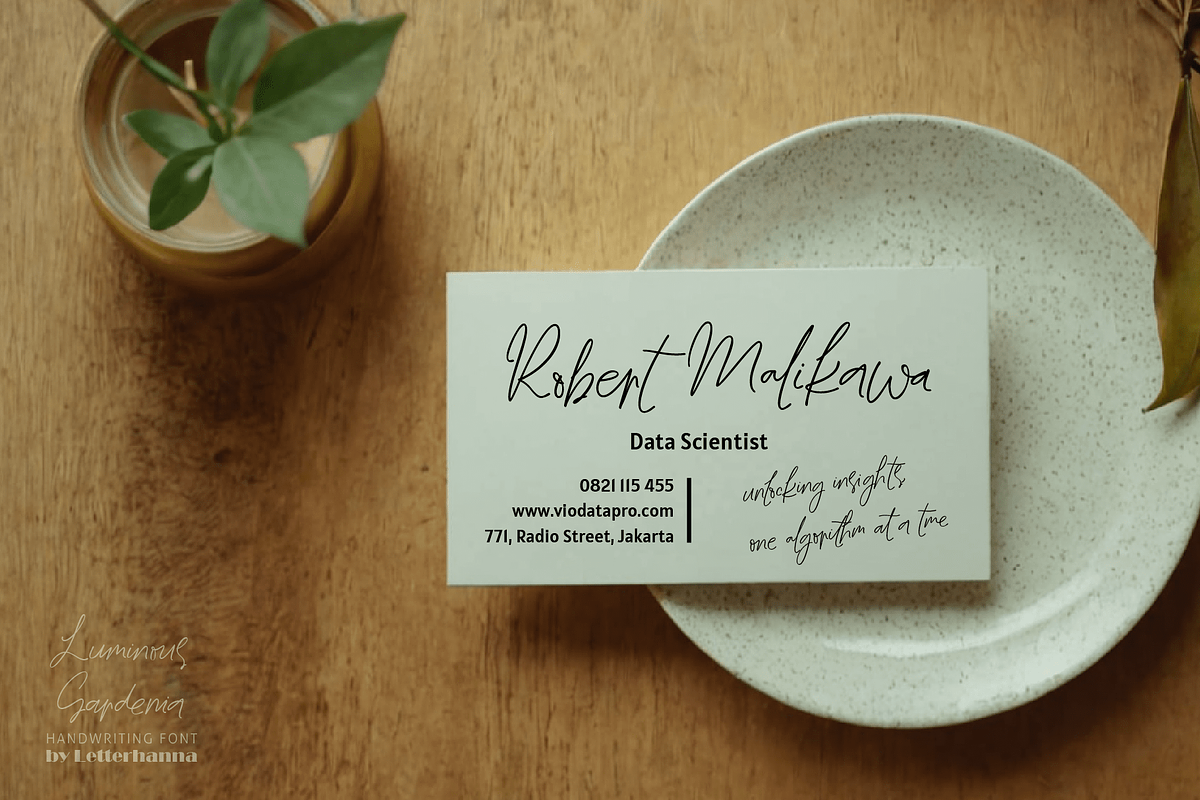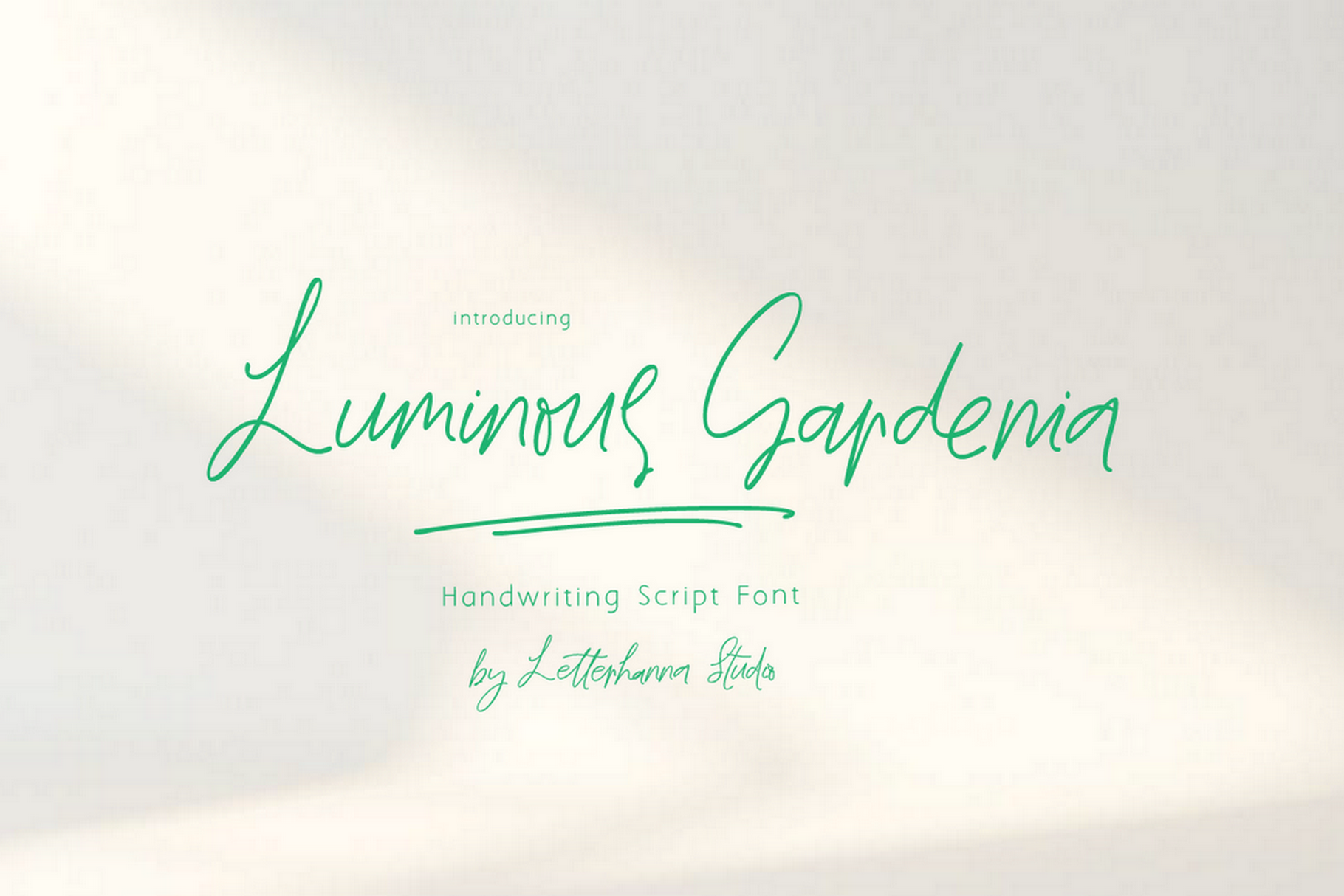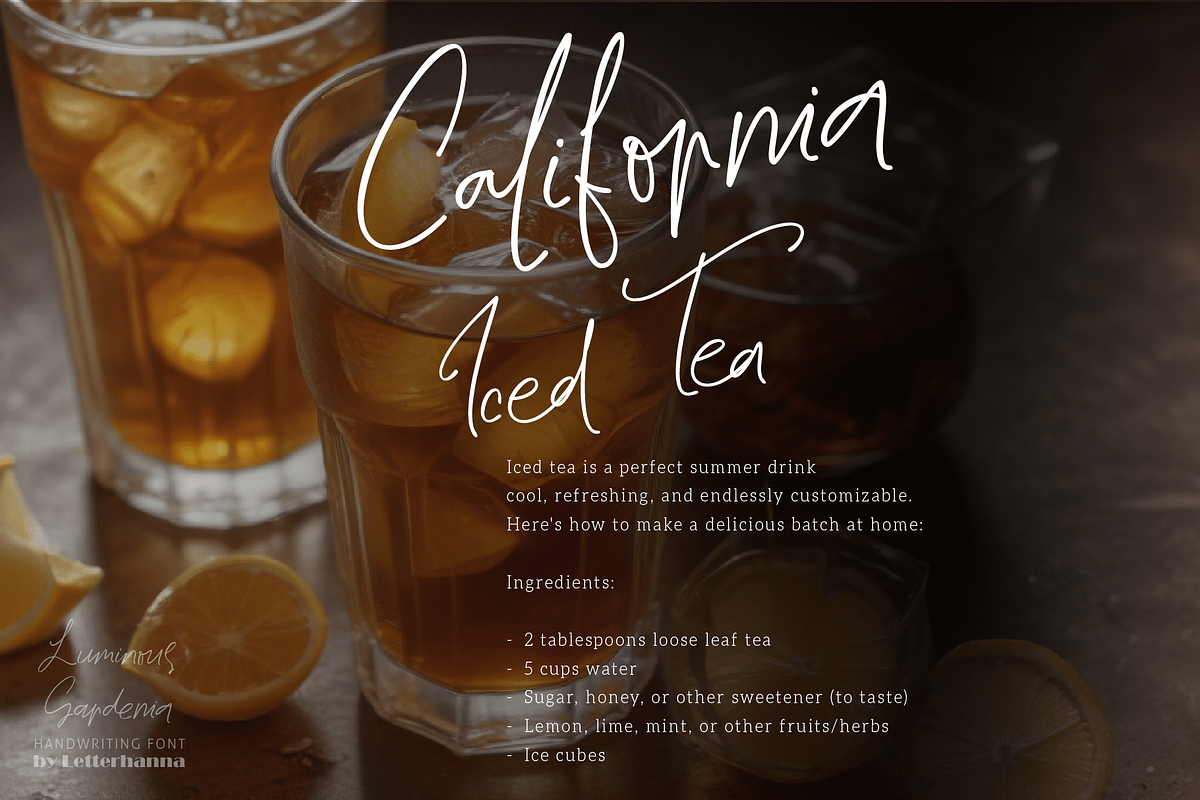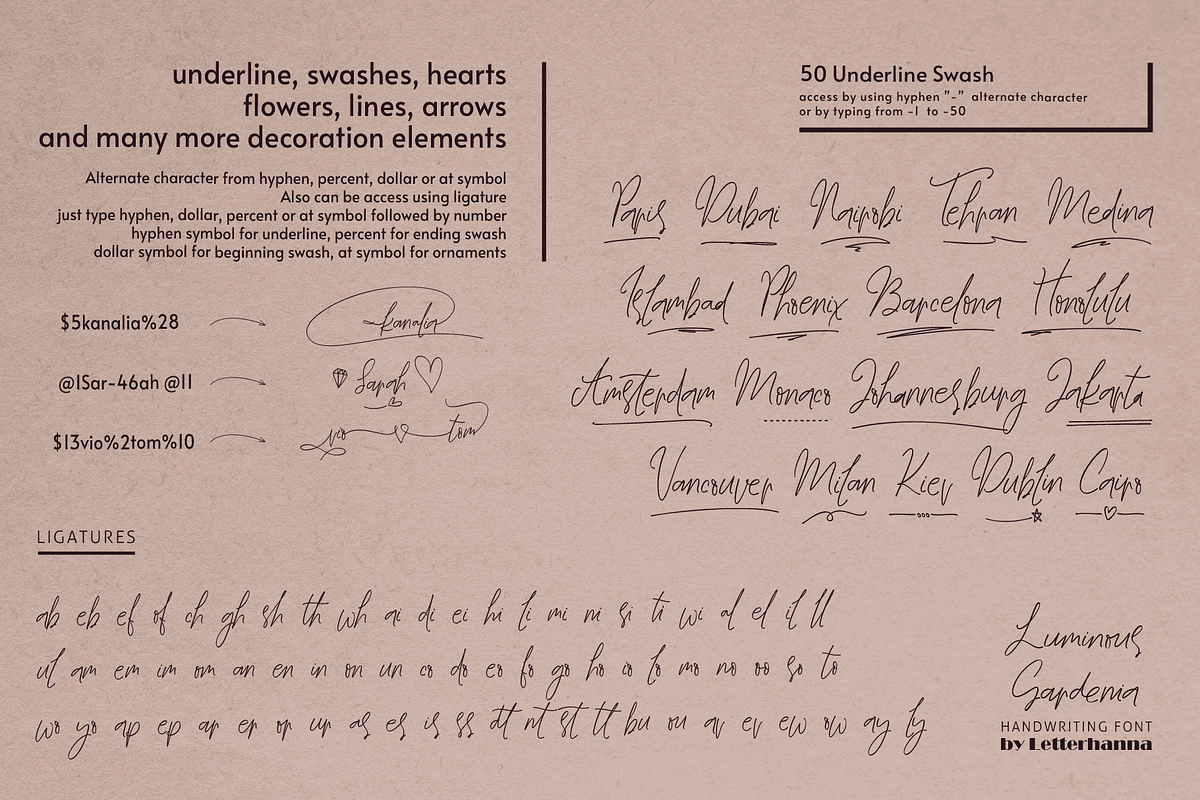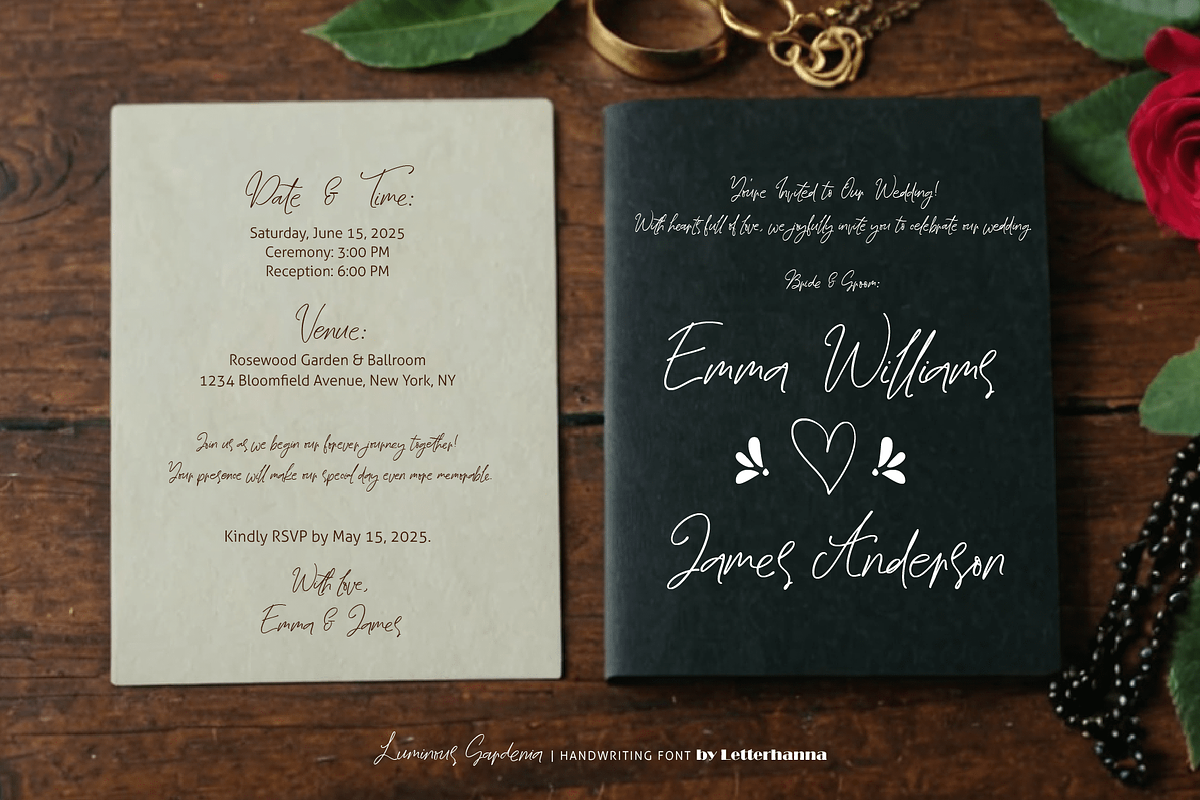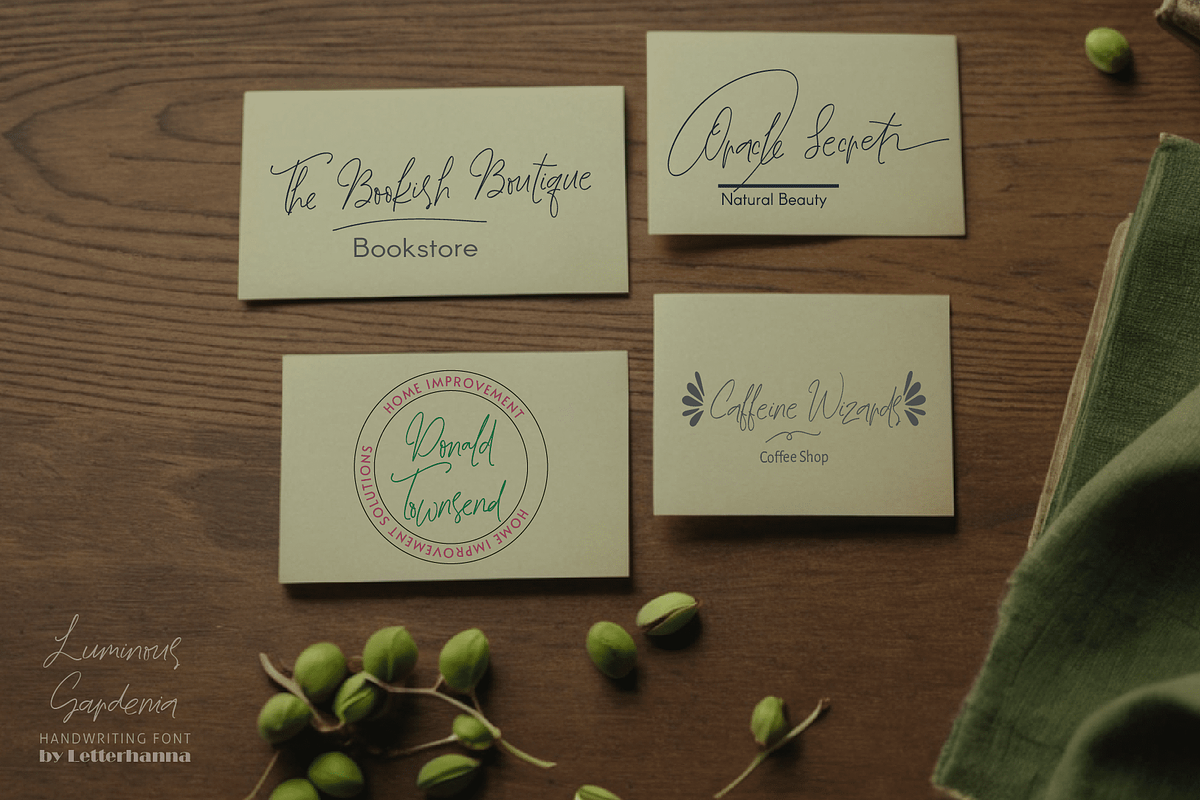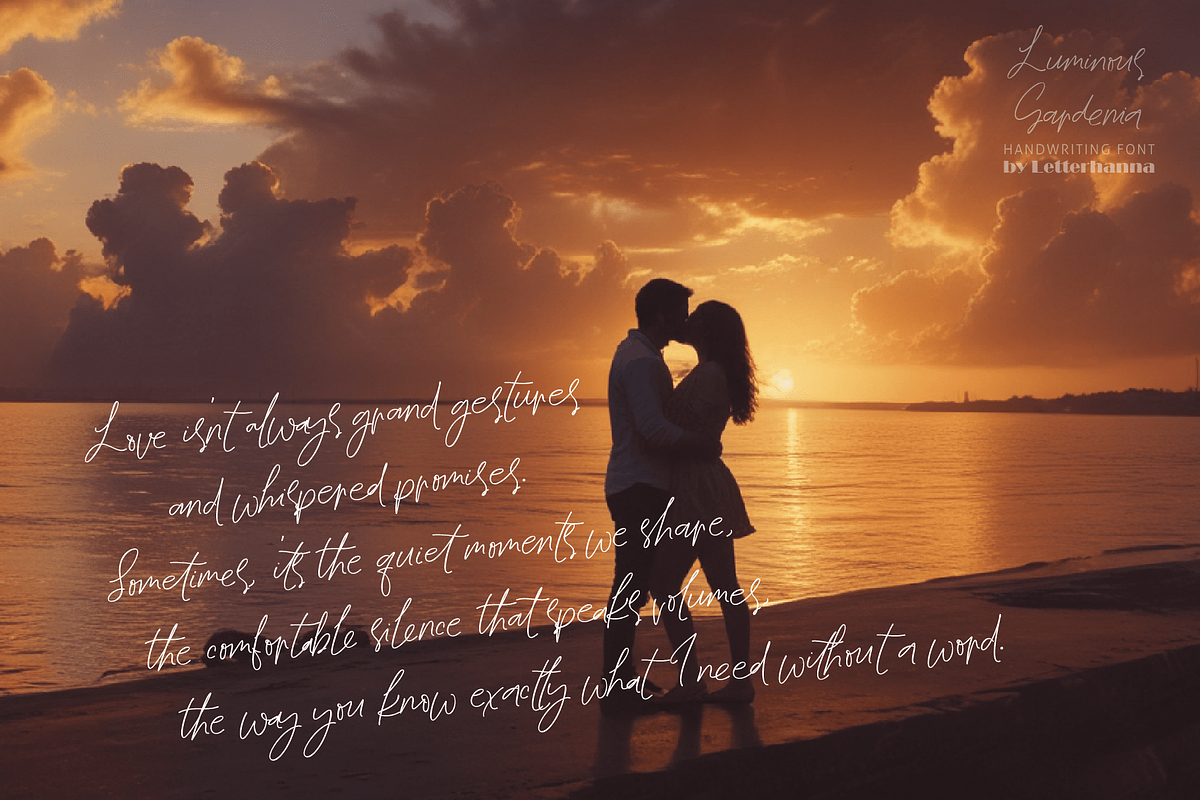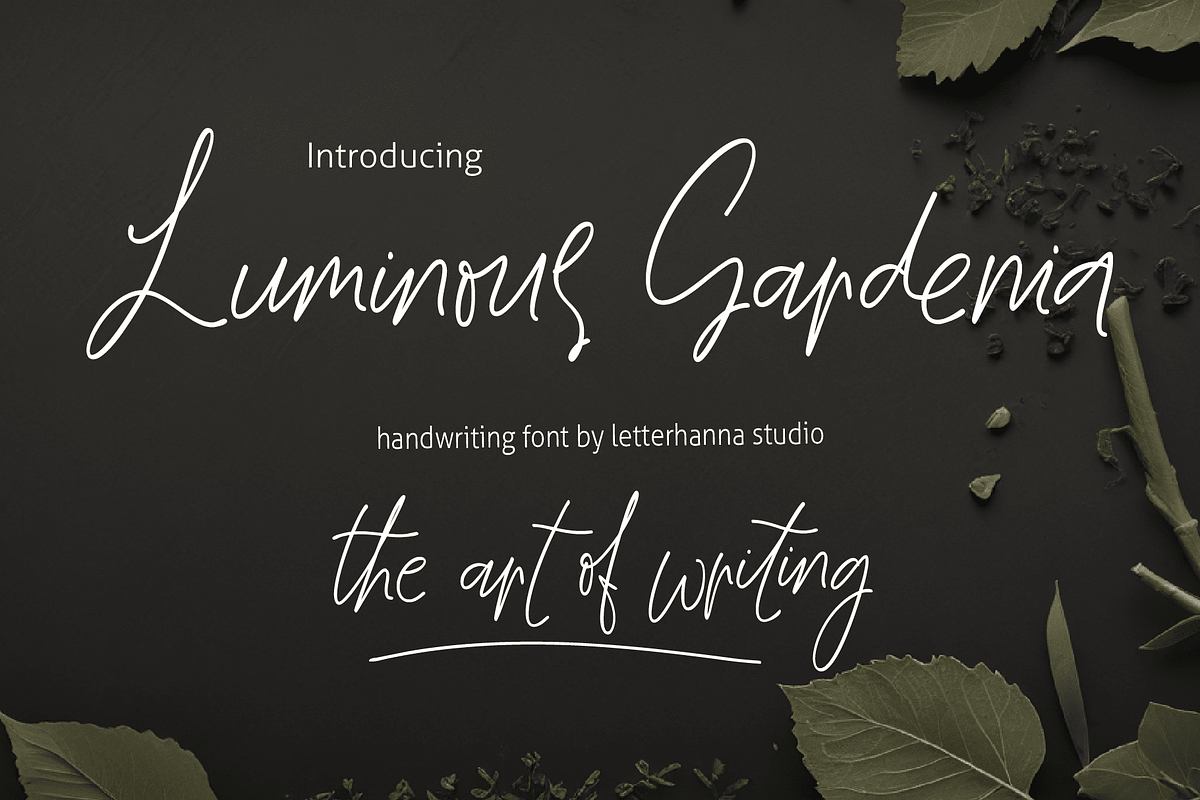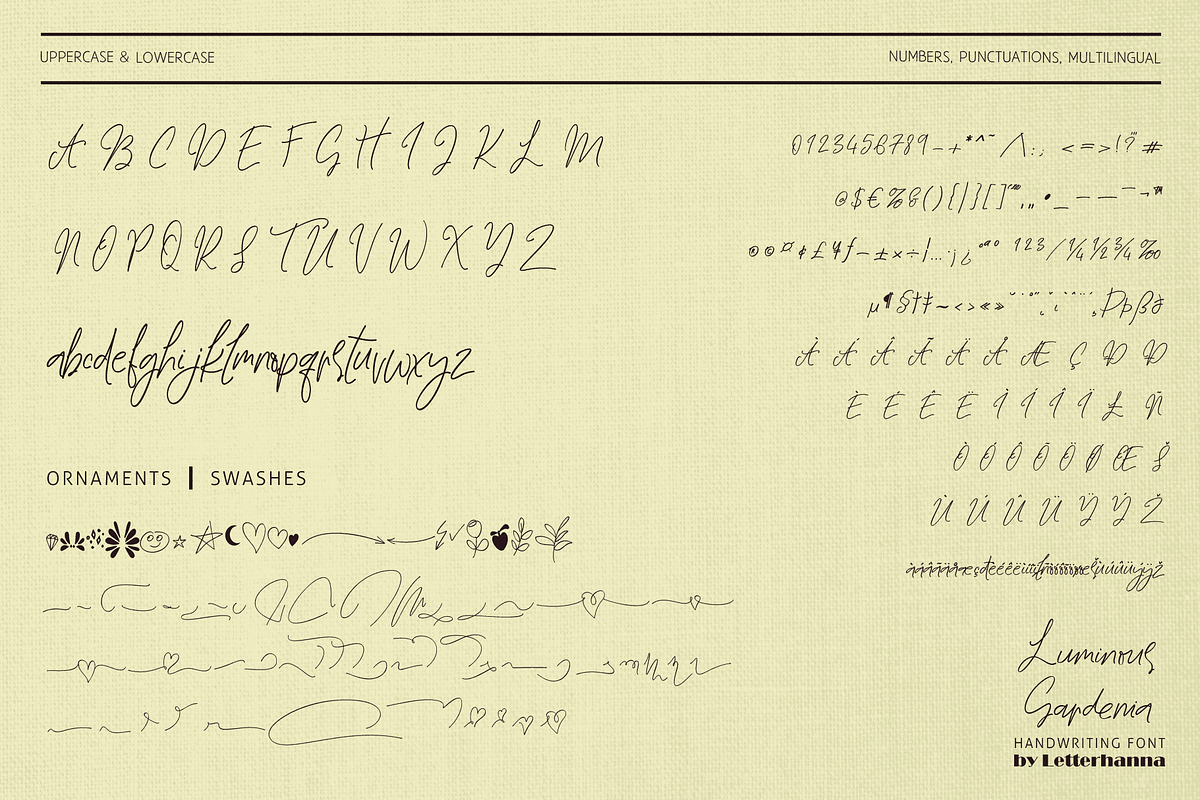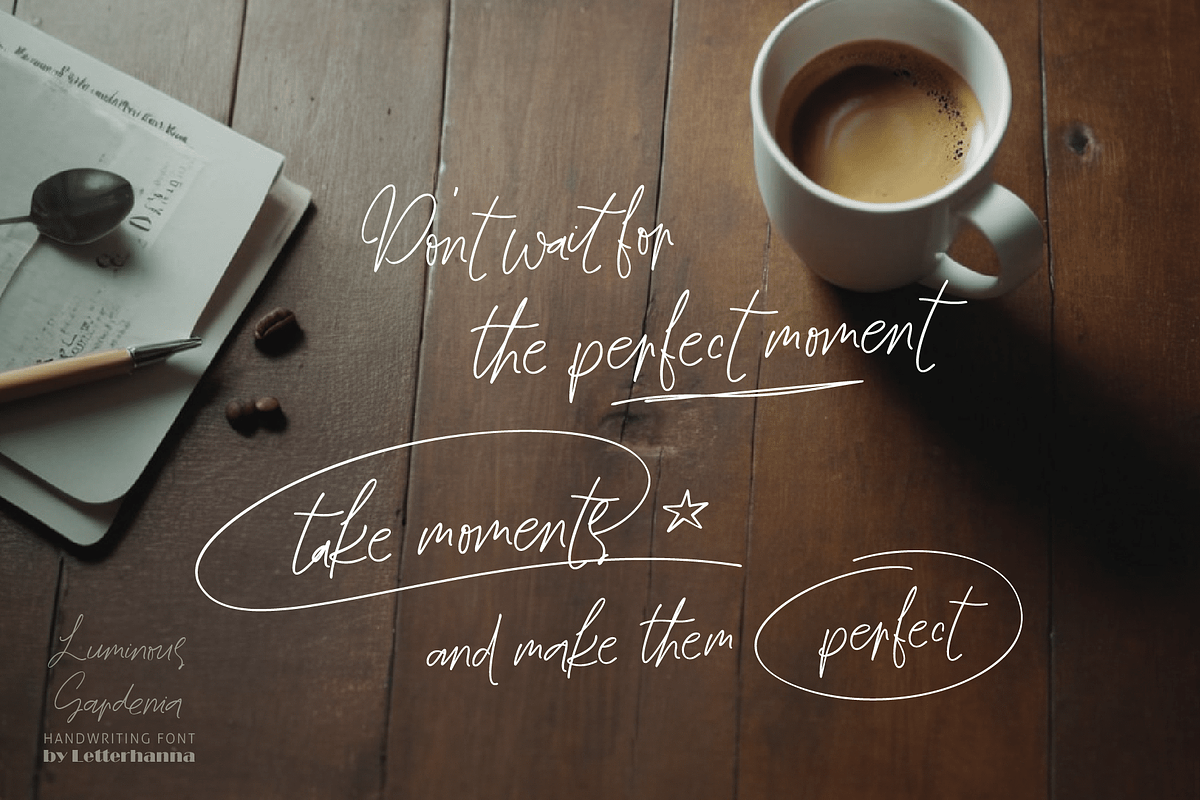
Luminous Gardenia Handwriting Font
A beautifully flowing handwriting script font that captures the elegance of natural penmanship with a modern touch. Delicate yet expressive, this font radiates charm with its smooth curves and graceful strokes, making it perfect for wedding invitations, branding, social media, and more. Whether you're crafting heartfelt messages or stylish designs, Luminous Gardenia brings a luminous touch of sophistication to every project.
Easy Access to Glyphs and Swashes
Gain easy access to all alternate glyphs, swashes, ornaments, and underlines by simply using ligatures. You can try them out yourself in the font preview tool on our website, letterhanna.com.
Accessing Swashes and Ornaments Underline Swashes: Use a hyphen symbol "-" followed by a number between 1 and 50. For example, type "-3", "-22", or "-17" to get various underline swashes. Head/Beginning Swashes: Use a dollar sign "$" followed by a number between 1 and 15. For example, type "$2" or "$8" to get different head/beginning swashes. Tail/Ending Swashes: Use a percent sign "%" followed by a number between 1 and 33. For example, type "%3" or "%15" to get various tail/ending swashes. Ornaments: Use an "at" symbol "@" followed by a number between 1 and 21. For example, type "@4" or "@13" to get different ornaments.
PUA Encoding for Ease of Use, which means you can access all the glyphs and swashes with ease!
Font Features Uppercase and lowercase letters Numbers and punctuation marks Multilingual support Ligatures Beginning and ending swashes Underline swashes Ornaments Easy access to swashes using ligatures